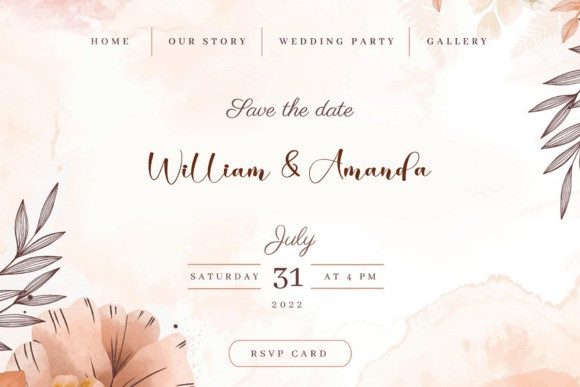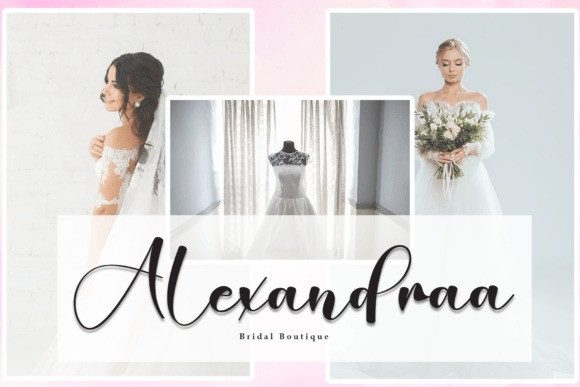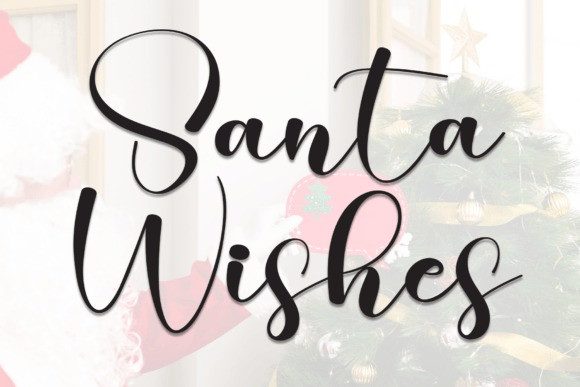
Santa Wishes Script Font
Santa Wishes Script Font is a stylish script font with elegant, flowing letters. It has a warm and festive feel, perfect for holiday designs, greeting cards, or special events. The smooth curves and playful style make it easy to read and adds a cheerful touch to any project.